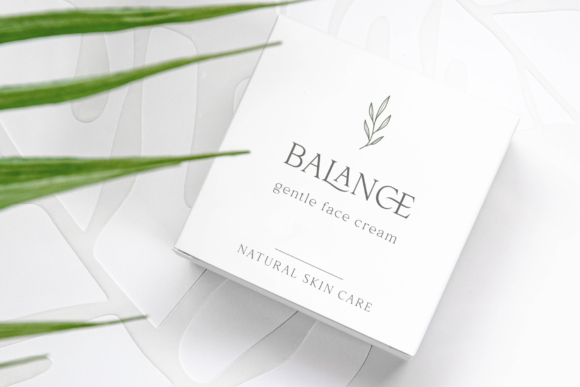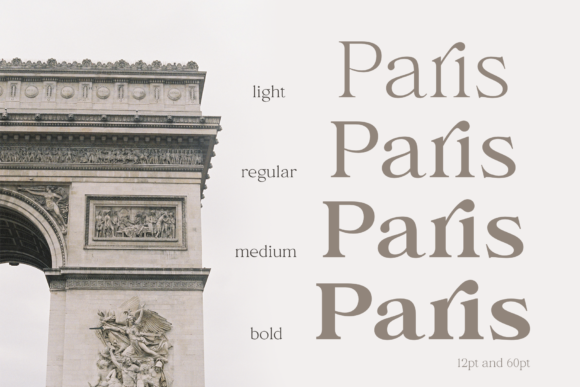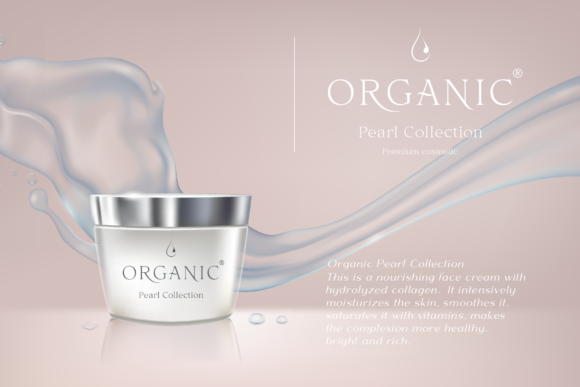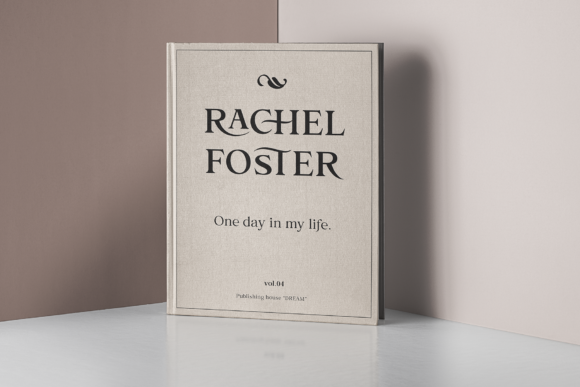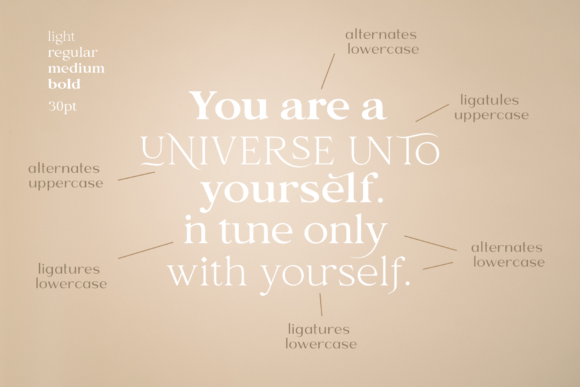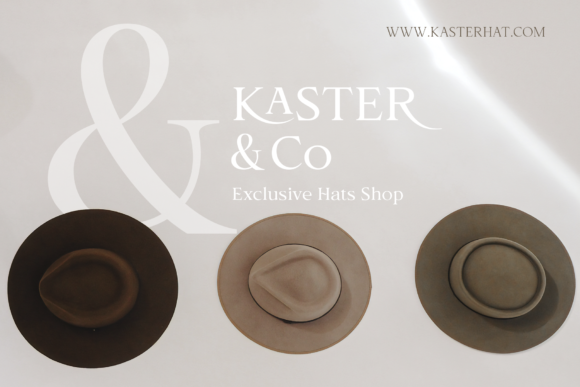
Bosca Font: Elevate Your Designs with Elegance and Versatility
Are you looking for a font that can add a touch of elegance and sophistication to your designs? Look no further than Bosca Font, a beautiful serif font family that is perfect for a wide range of applications. With its 4 styles, Bosca is a versatile font that can be used to create stunning logos, social media posts, headings, and more.
What is Bosca Font?
Bosca Font is a carefully crafted serif font family that is designed to bring a sense of luxury and refinement to your designs. With its elegant lines and classic feel, Bosca is perfect for designers and crafters who want to create high-end designs that stand out from the crowd. Whether you’re working on a branding project, creating wedding designs, or simply looking for a font to use on social media, Bosca is a great choice.
Key Features of Bosca Font
- 4 Styles: Bosca Font comes in 4 different styles, giving you plenty of options to choose from and allowing you to create a unique look that suits your design needs.
- PUA Encoded: Bosca Font is PUA encoded, which means that you can access all of the great glyphs and swashes with ease. This makes it easy to add extra flair to your designs and create a truly custom look.
- Versatile: Bosca Font is incredibly versatile and can be used in a wide range of applications, from logos and headings to social media posts and wedding designs.
- Elegant Serif Design: Bosca Font features a beautiful serif design that adds a touch of elegance and sophistication to any design.
Uses for Bosca Font
Bosca Font is a versatile font that can be used in a wide range of applications. Here are some ideas to get you started:
- Logos: Bosca Font is perfect for creating logos that need to make a statement. Its elegant design and classic feel make it a great choice for businesses that want to look professional and sophisticated.
- Social Media Posts: Add a touch of elegance to your social media posts with Bosca Font. Its versatility and range of styles make it perfect for creating eye-catching graphics and posts that stand out from the crowd.
- Wedding Designs: Bosca Font is a popular choice for wedding designs, including invitations, programs, and signage. Its elegant design and classic feel make it perfect for creating beautiful and memorable wedding stationery.
- Headings and Titles: Bosca Font is also great for use as headings and titles. Its serif design and elegant lines make it perfect for adding a touch of sophistication to any design.
Why Choose Bosca Font?
So why choose Bosca Font for your next design project? Here are just a few reasons:
- Elegance: Bosca Font adds a touch of elegance and sophistication to any design. Its classic feel and serif design make it perfect for creating high-end designs that stand out from the crowd.
- Versatility: Bosca Font is incredibly versatile and can be used in a wide range of applications. Whether you’re working on a logo, social media post, or wedding design, Bosca is a great choice.
- Easy to Use: Bosca Font is PUA encoded, which makes it easy to access all of the great glyphs and swashes. This means that you can create a truly custom look with minimal effort.
In conclusion, Bosca Font is a beautiful and versatile serif font family that is perfect for designers and crafters who want to add a touch of elegance and sophistication to their designs. With its 4 styles, PUA encoding, and classic feel, Bosca is a great choice for a wide range of applications. Whether you’re working on a logo, social media post, or wedding design, Bosca Font is sure to elevate your design to the highest level.